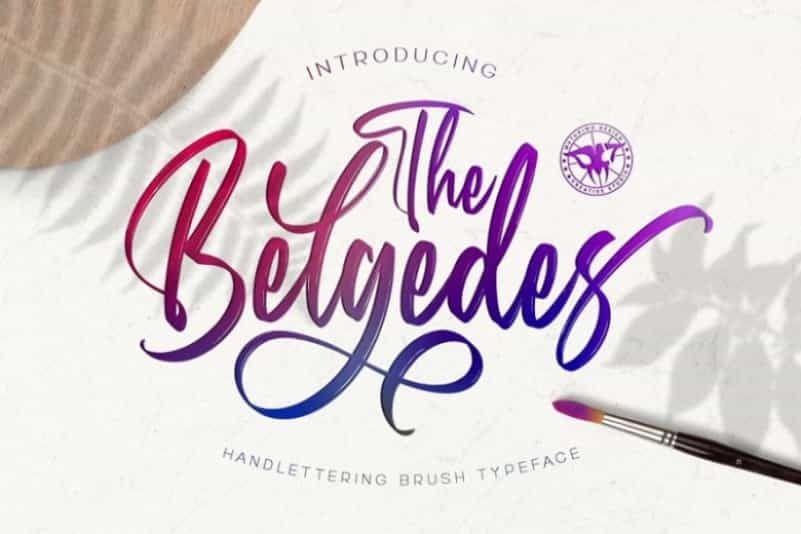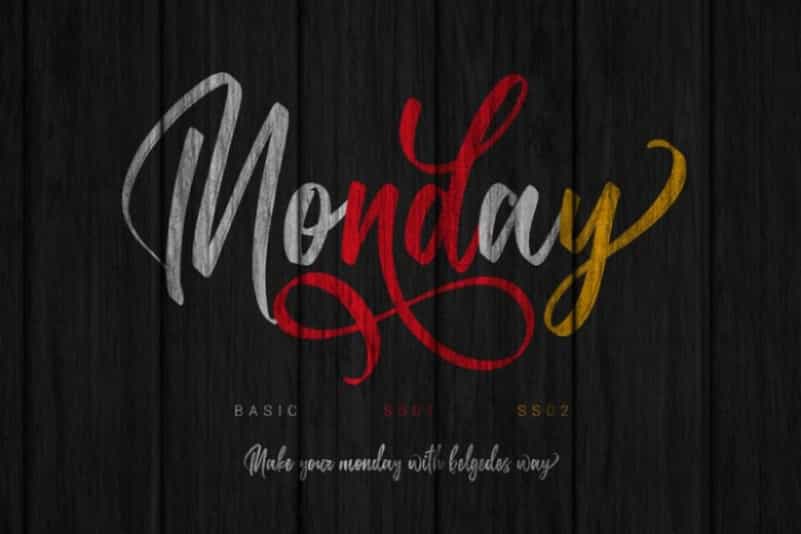
Hello friend! Belgedes Brush Script Font– Inspired by brush style and combination with Hand Lettering style. Every single letters have been carefully crafted to make your text looks beautiful. I hope this can make inspire you from your work. It is was designed and shares by Motokiwo. Belgedes Fonthas brush script font with hand lettering style. It can be viewed in every design/every project, etc.